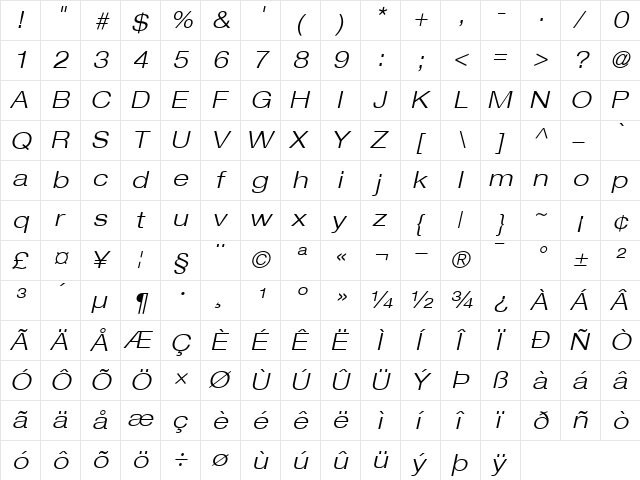
Helvetica43-ExtendedLight LightItalic
Design Context for Helvetica43-ExtendedLight Typeface
Helvetica43-ExtendedLight is a composed and adaptable typeface that performs quietly and consistently across a wide range of design contexts. The dynamic lean of this cut emphasises speed and emphasis in any layout. The delicate stroke weight brings airiness and refinement to layouts.
Pro Tip: Use Helvetica43-ExtendedLight for emphasis, pull quotes, and subheadings where its slanted energy can add rhythm to the layout.